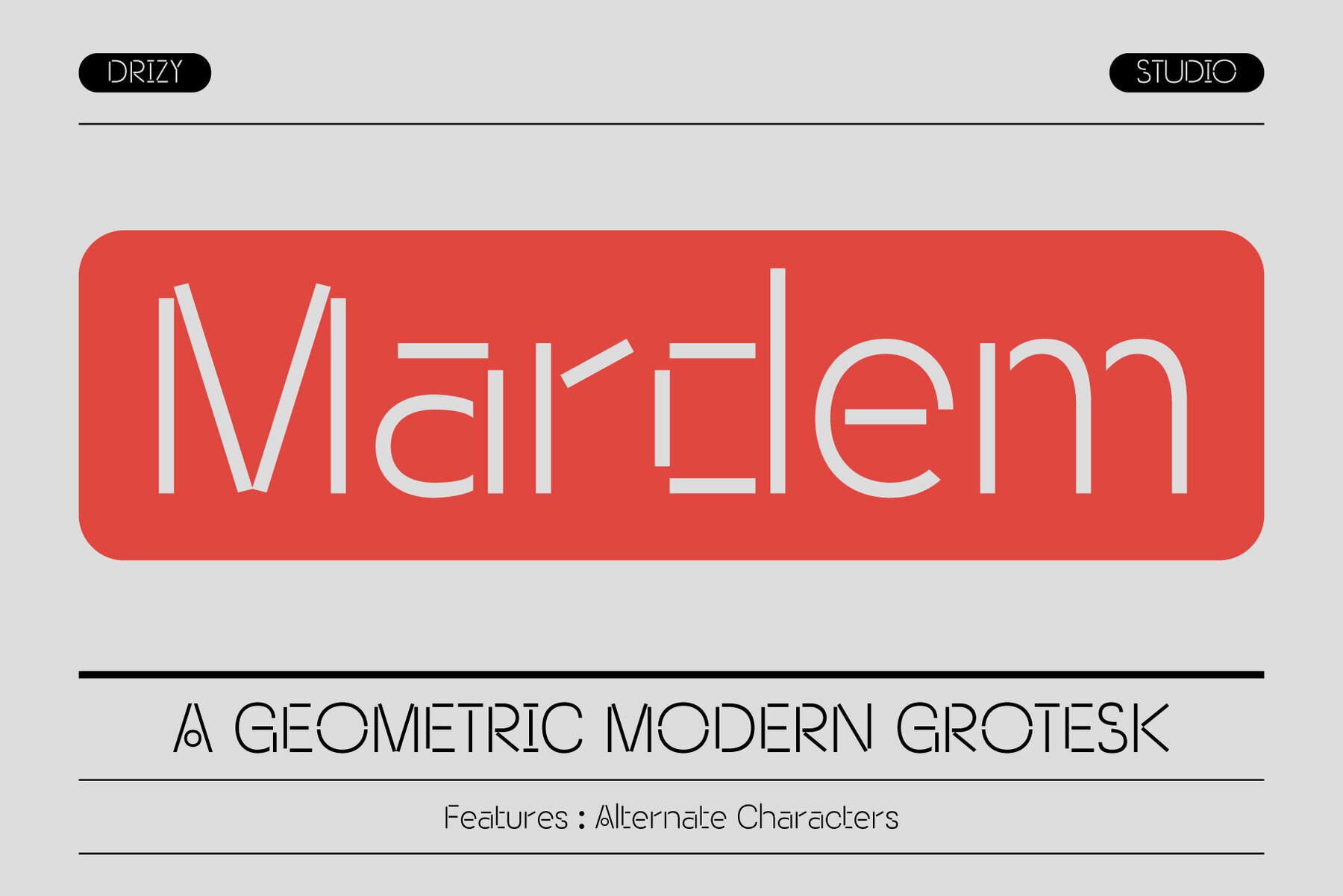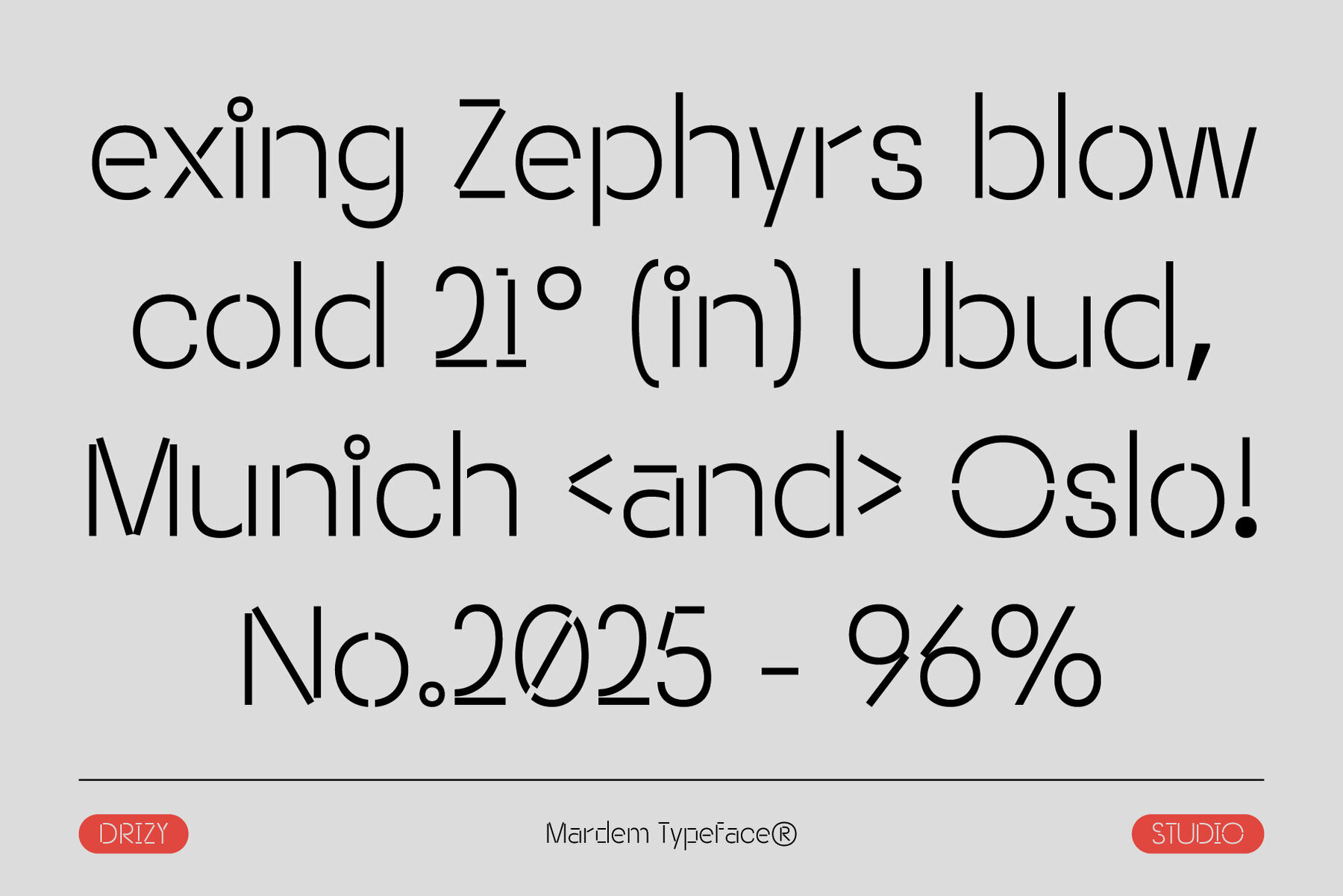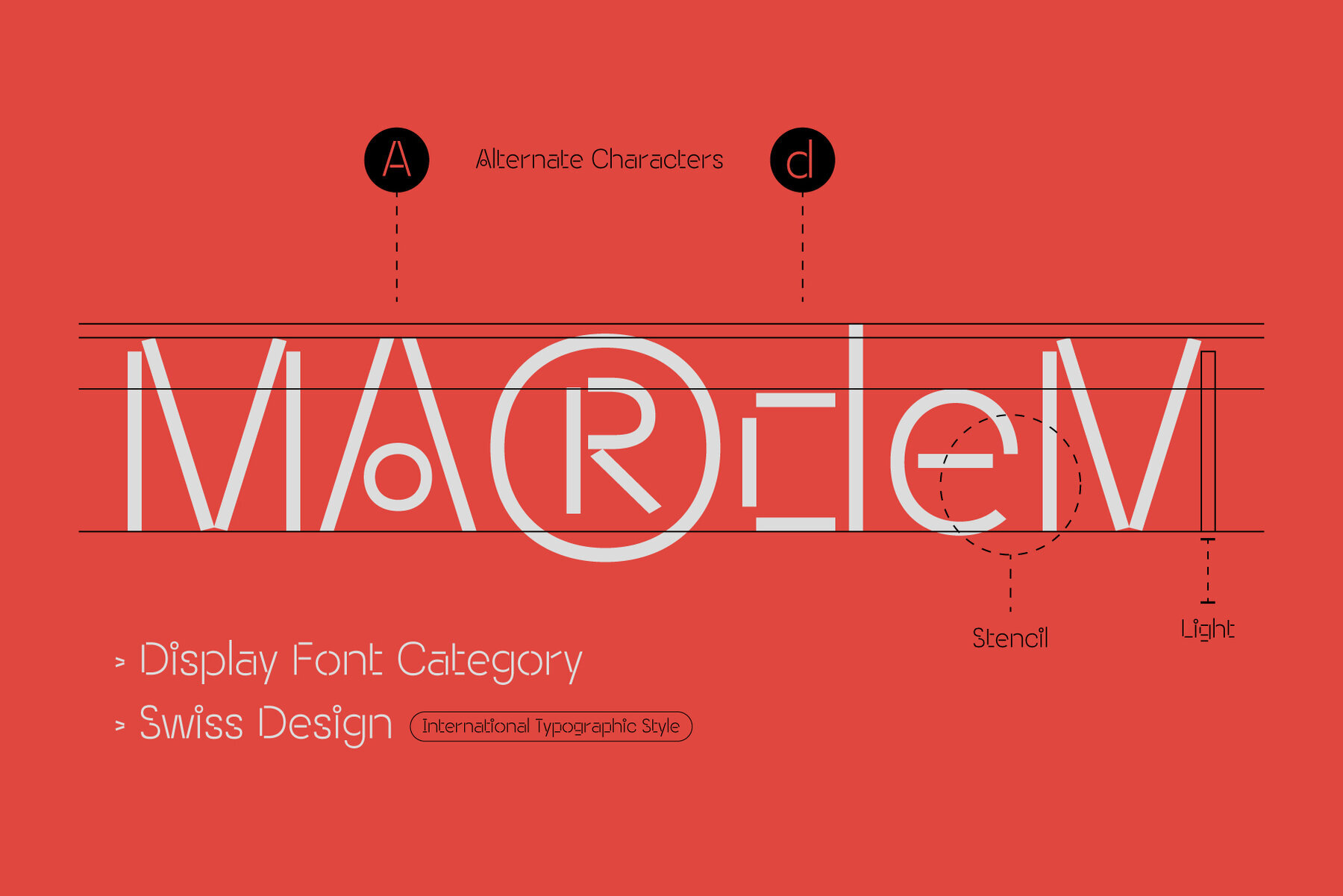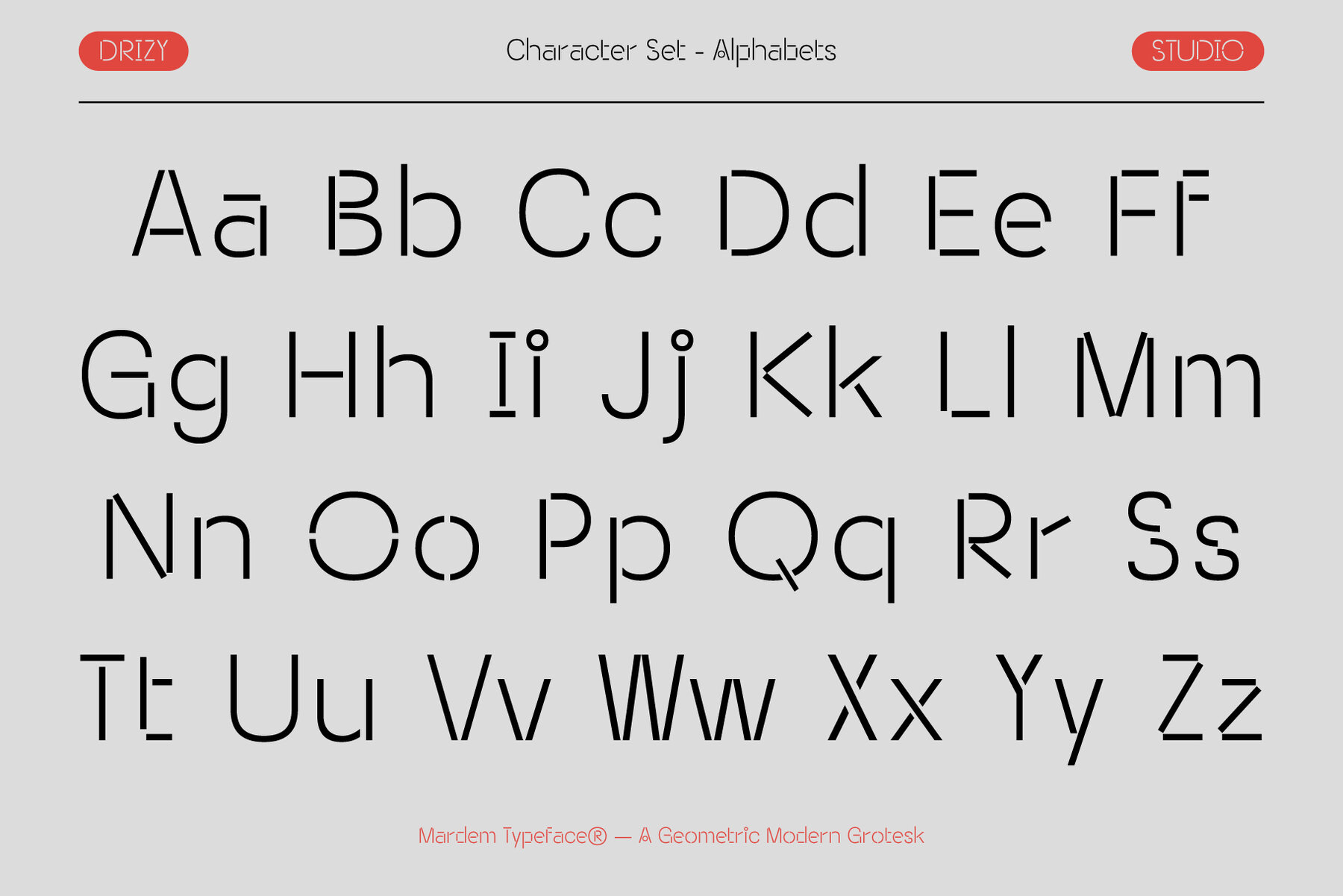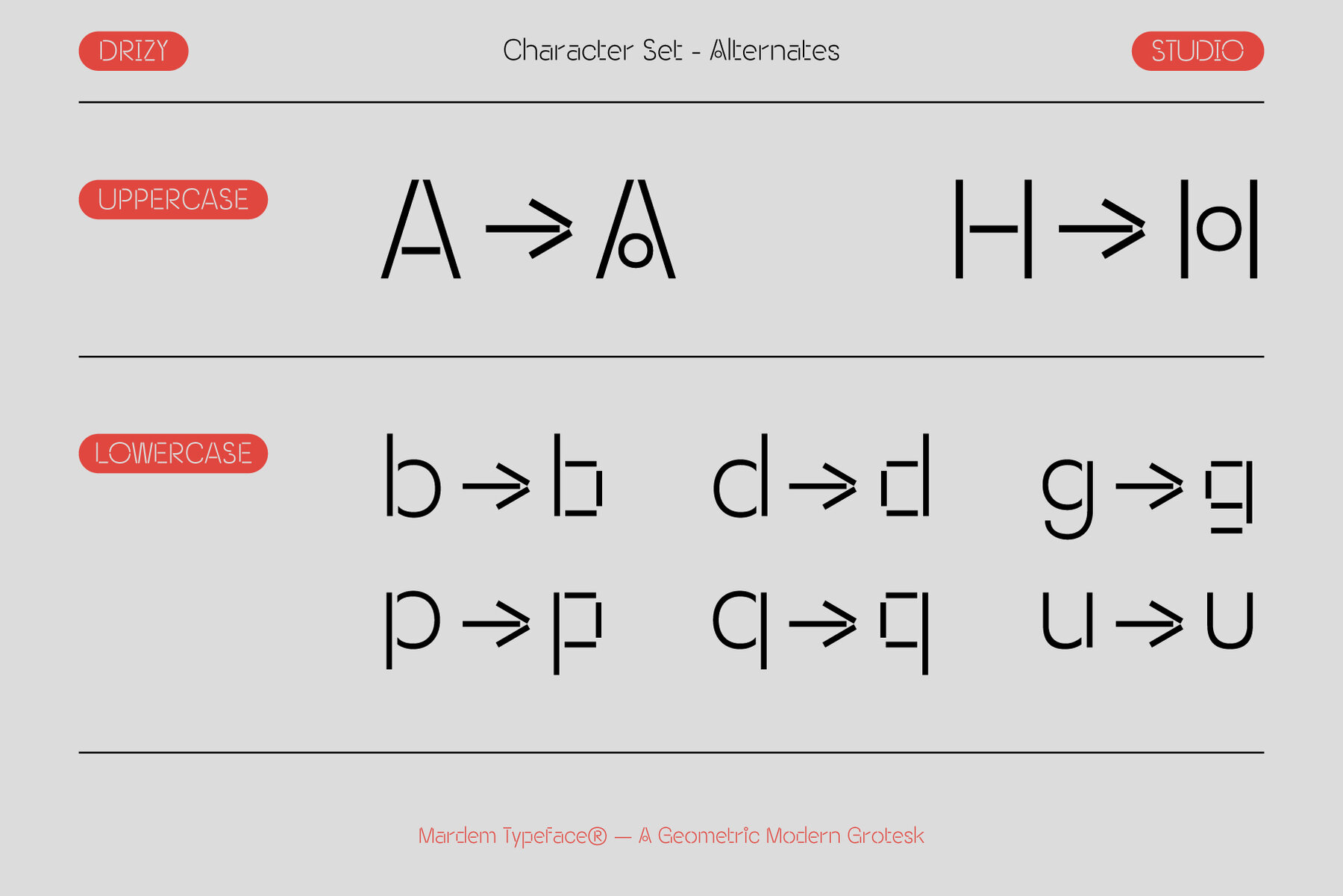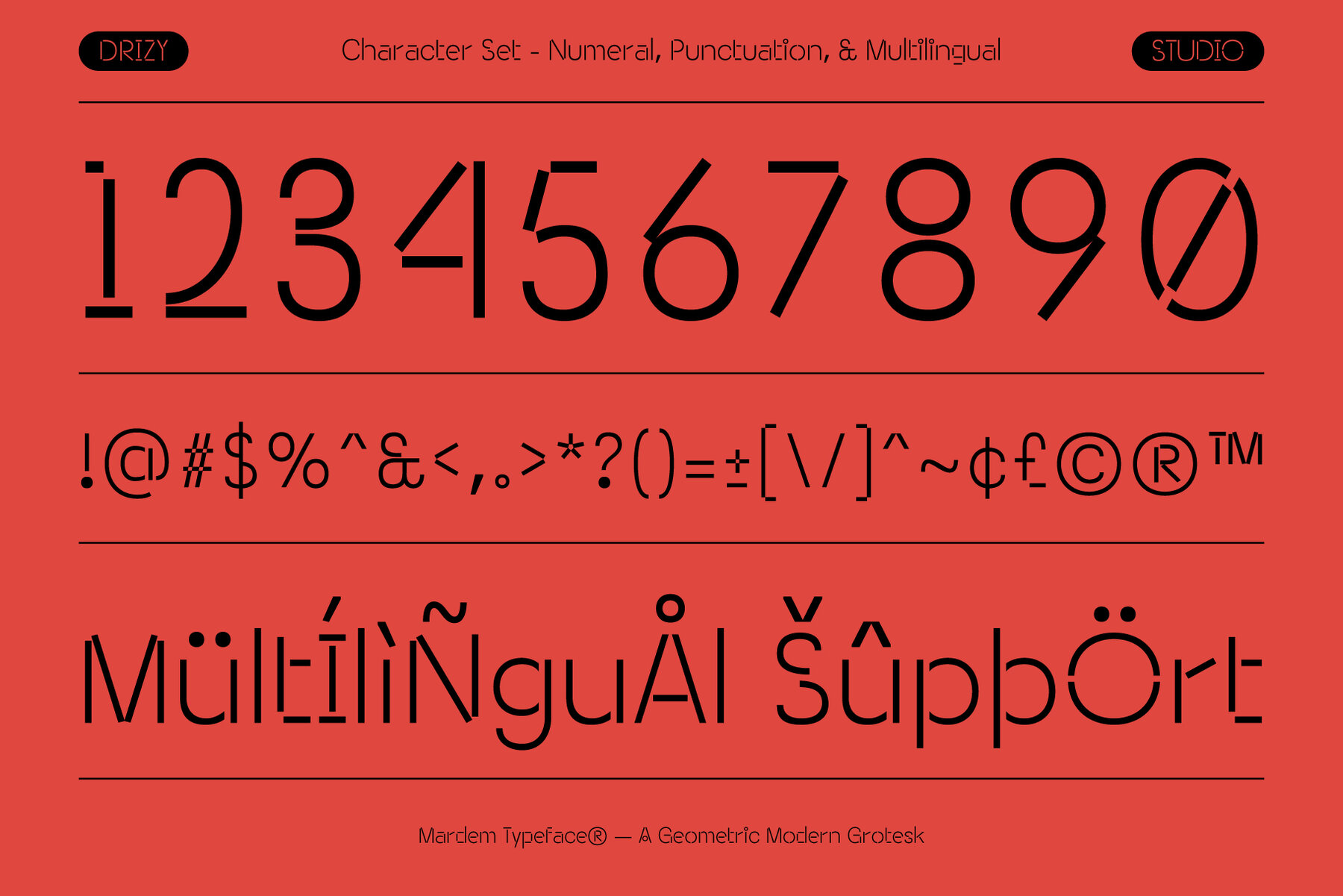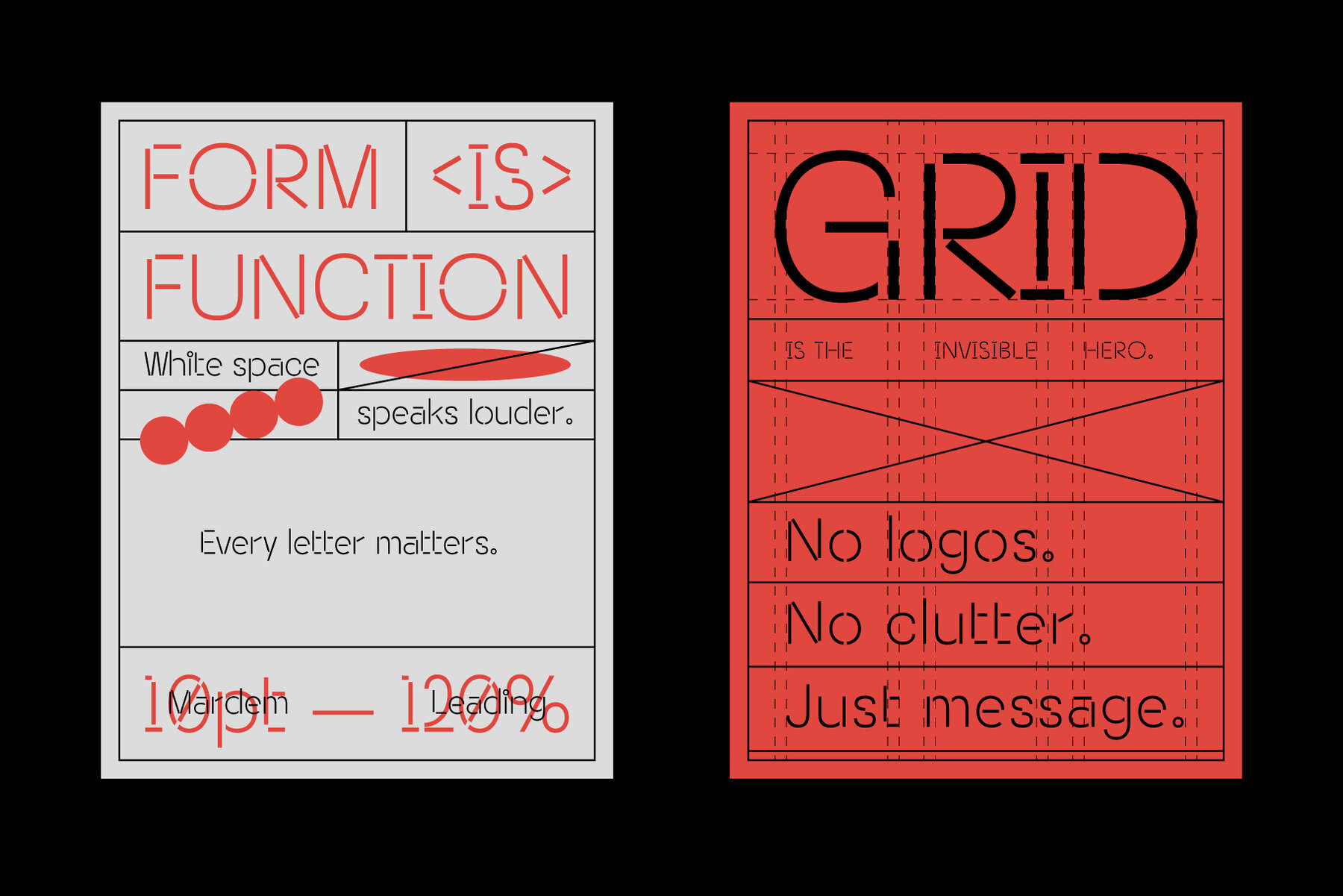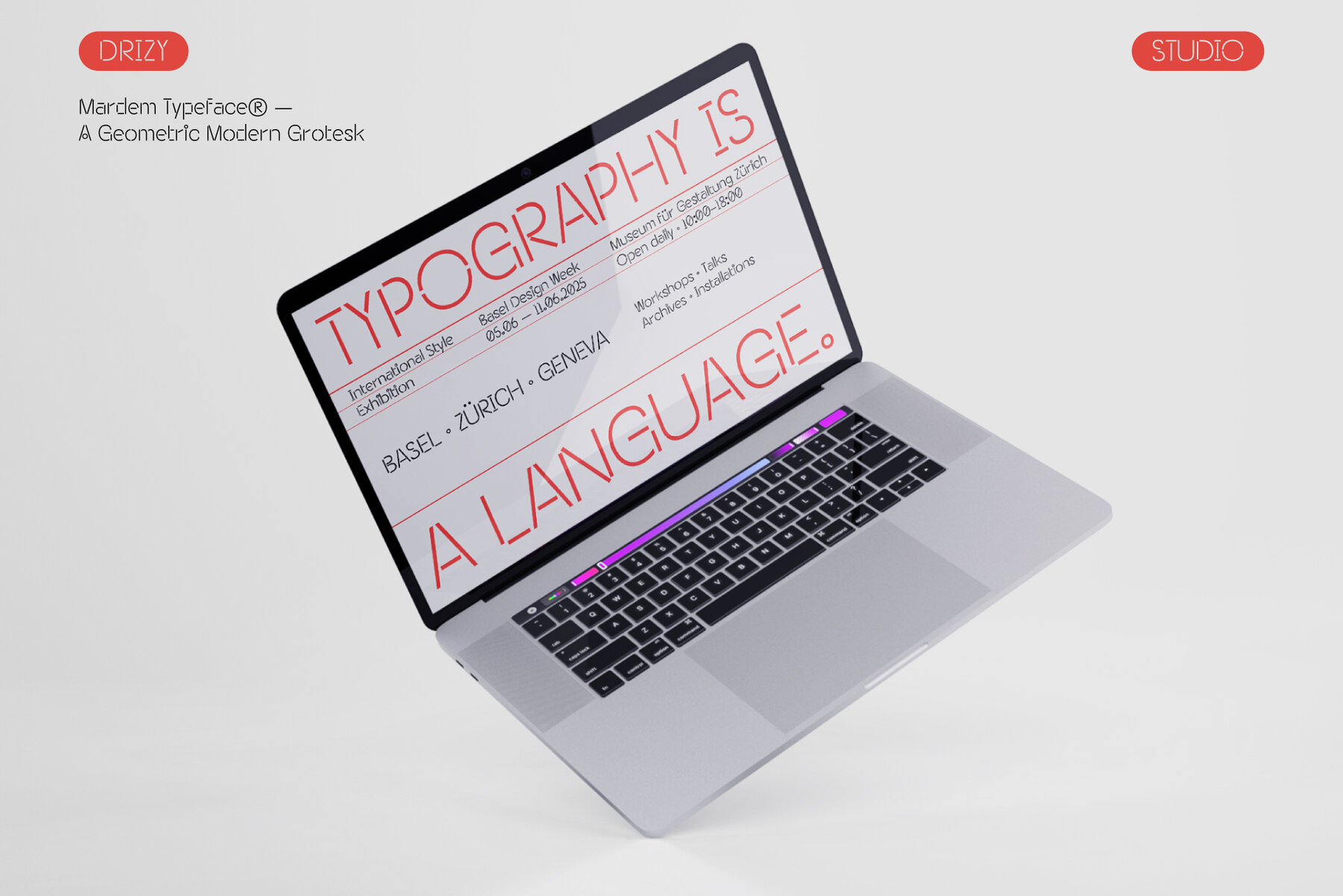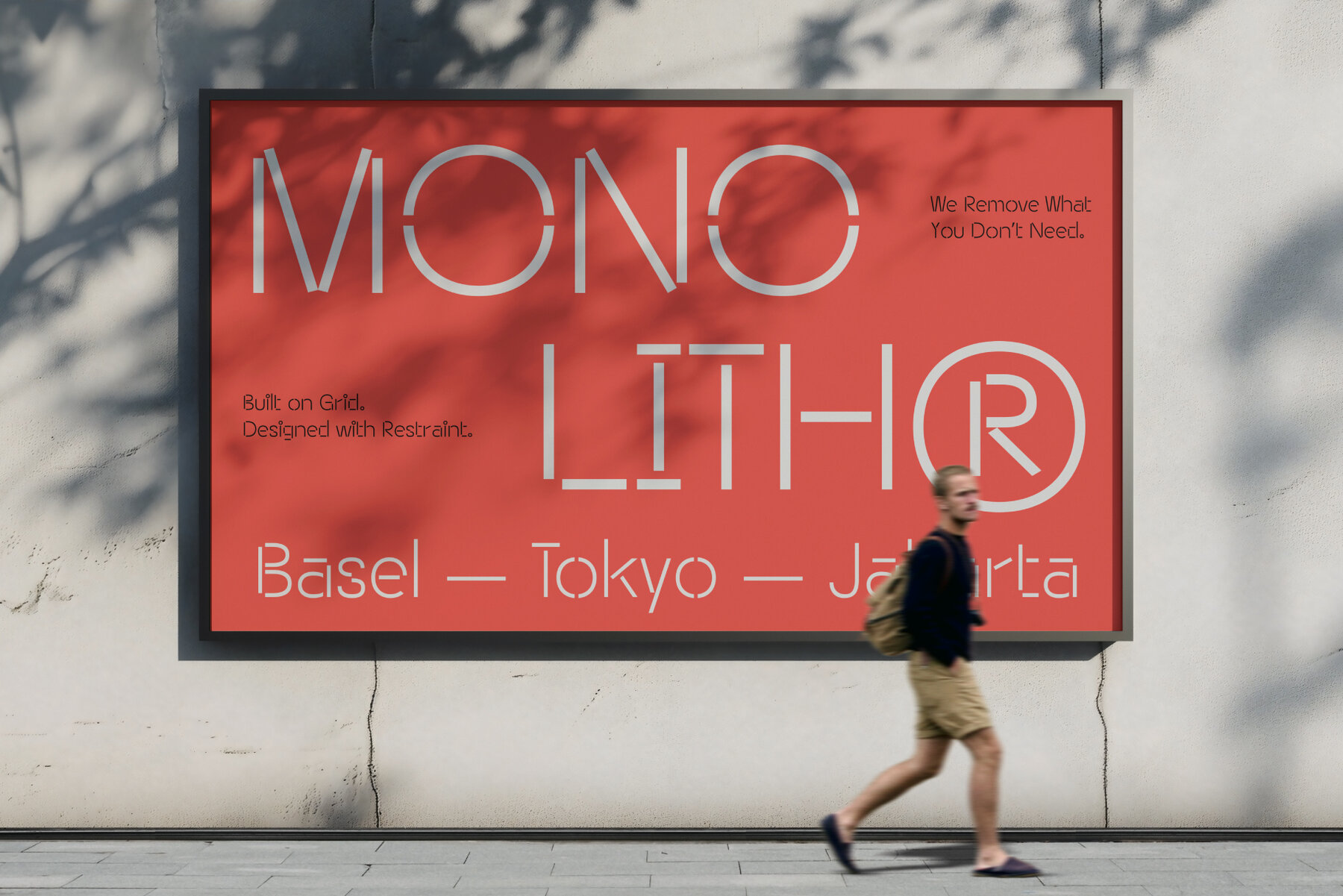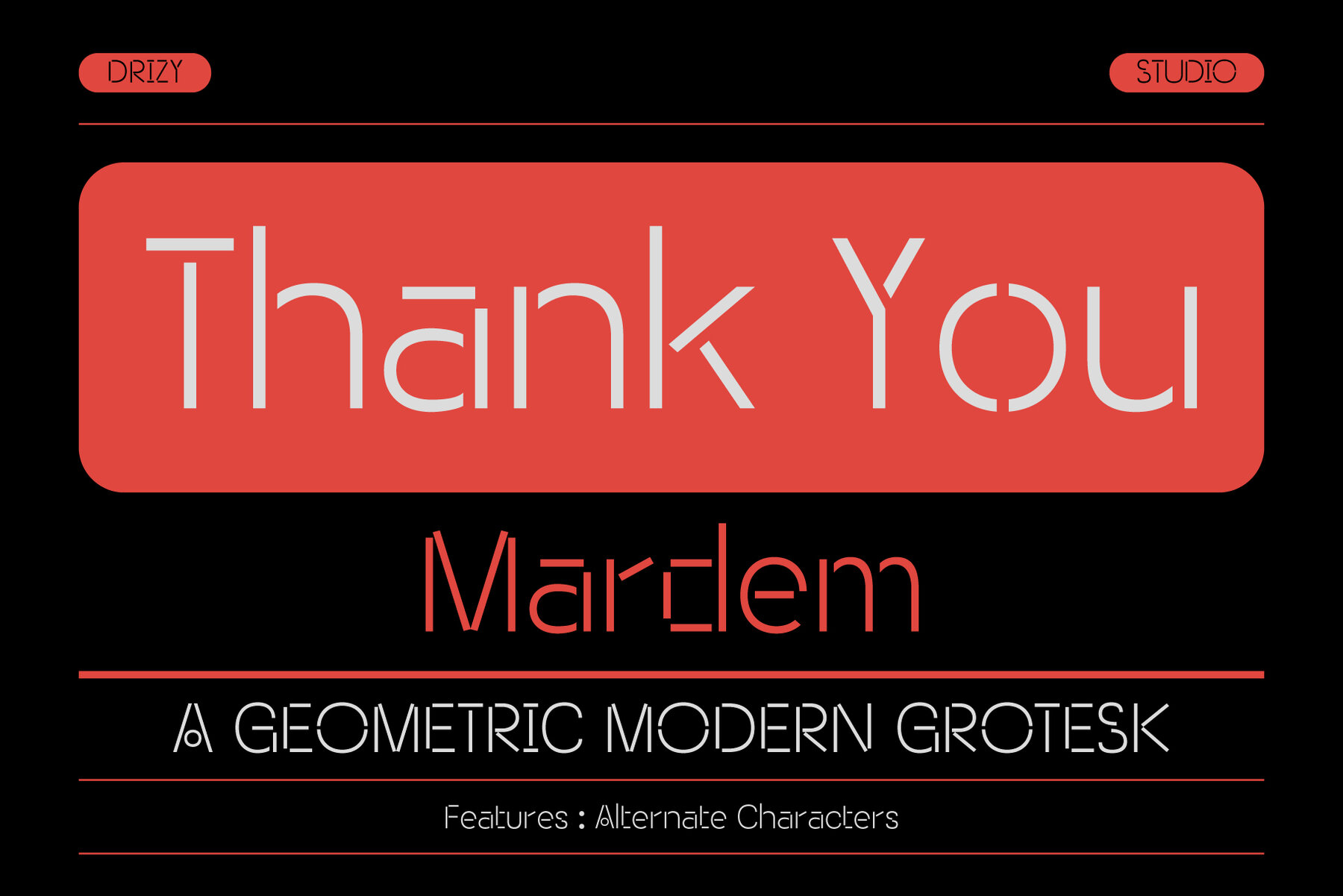
Mardem Font
Mardem Regular
Mardem brings a fresh, futuristic appeal to typographic design. This font embodies a modern grotesk style, enriched with a bold stencil aesthetic. Incorporating clean cuts, sharp curves, and a modular approach, Mardem effortlessly combines industrial strength with contemporary sophistication. It's an ideal choice for branding, tech interfaces, sci-fi titles, or any creative project that pushes the boundaries of design.Mardem: Geometric Modern Grotesk Font
Features of Mardem